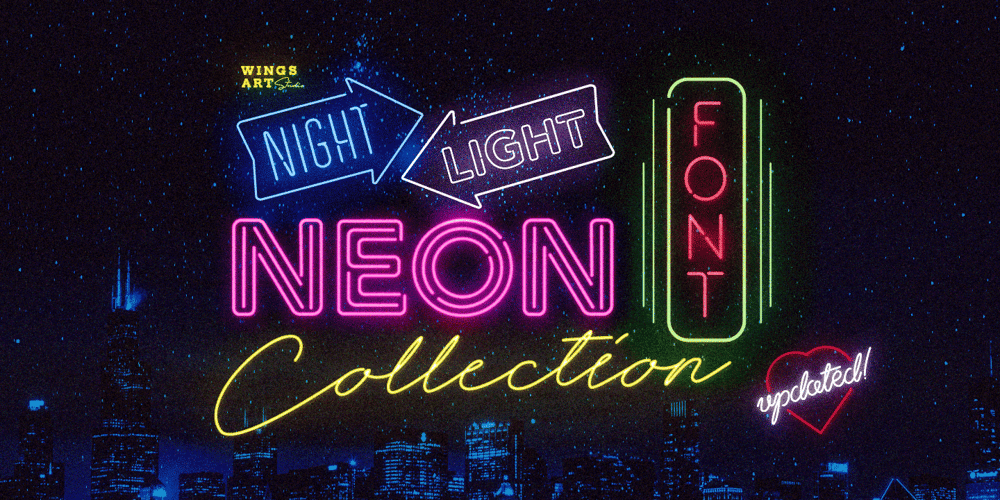
Night Light Neon Font Family was designed by Christopher King and published by Wing’s Art Studio. Night Light Neon contains 7 styles and family package options. Night Light is a specially created collection of seven neon inspired fonts giving designers the power to replicate traditionally hand-made lettering from the comfort of their own computer.Choose from the selection of script, sans serif and outline fonts to set your text. Then apply our custom graphic styles for a life giving jolt of electricity!The appeal of neon lettering lives in its power to display a message in a functional, eye-catching and timelessly cool way. How many times have you stopped in the street to admire a bar sign or shop front blazing with neon colors? It’s aesthetic works equally well for a Hot Dog stand or high-end fashion brand, providing a tried and tested technique for grabbing customer attention.I’ve designed these fonts to make the power of neon accessible to all, investing time to research real neon signs and how they are made, paying attention to their human imperfections and inherent limitations (all of which makes them). This research has been distilled into these essential styles; Script, Outline, Inline, Square and Compressed. These seven core fonts give designers a new opportunity to take advantage of realistic neon lettering in their print and online projects, perfect for music promotion, film titles, YouTube tutorials and gig posters. Ready to be moulded to any requirement, the power of neon is in your hands.Neon Graphic Style Presets Available HereThe link above provides access to the graphic styles seen in the visuals with support for Adobe Photoshop, Adobe Illustrator, Adobe After Effects. Simply download and follow the instructions provided.